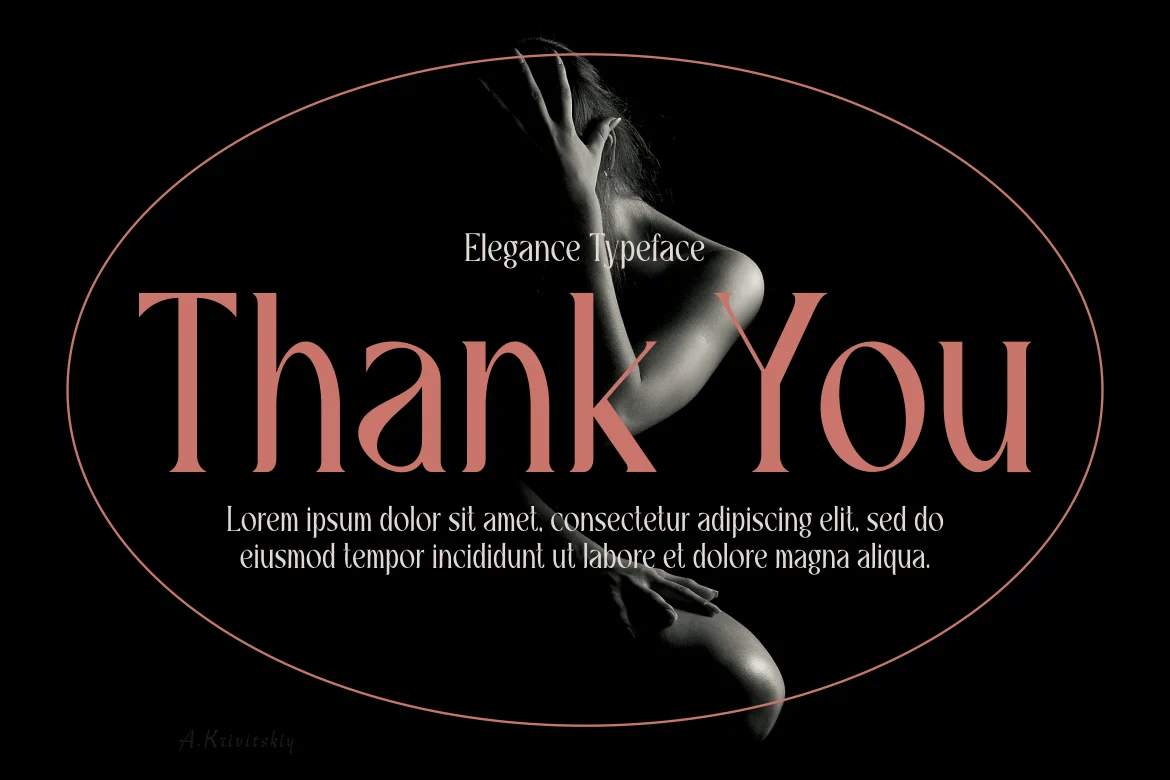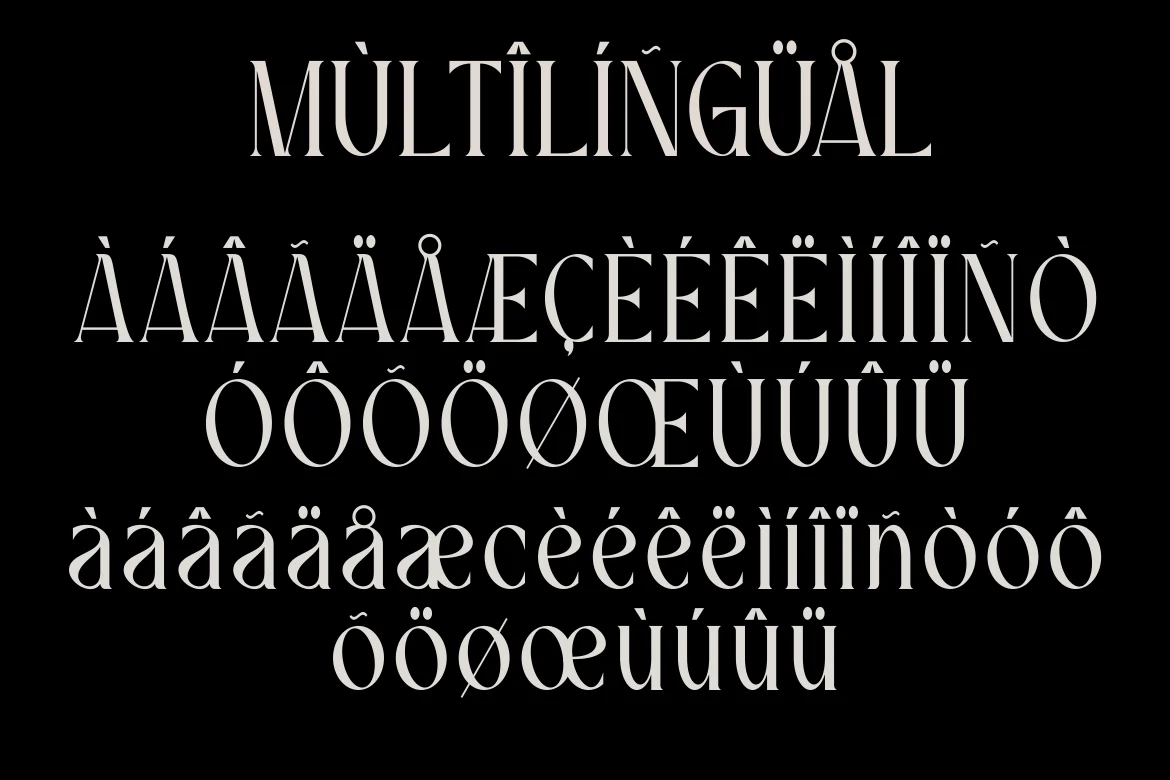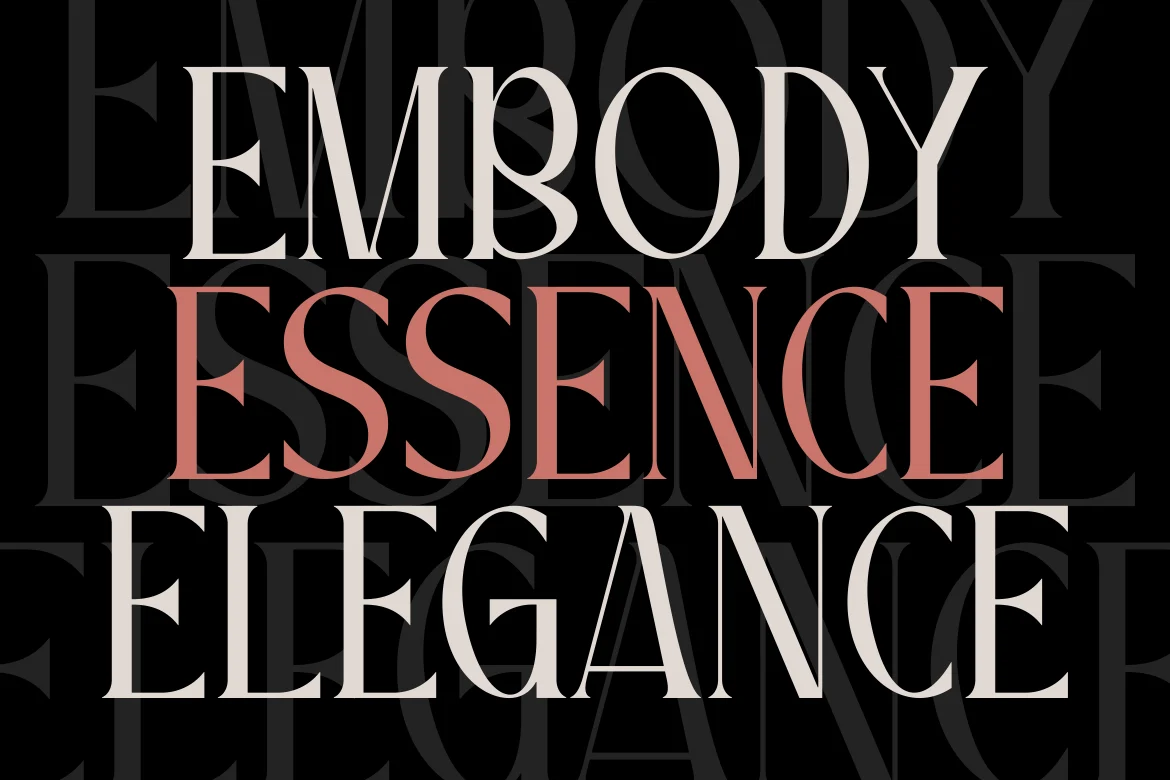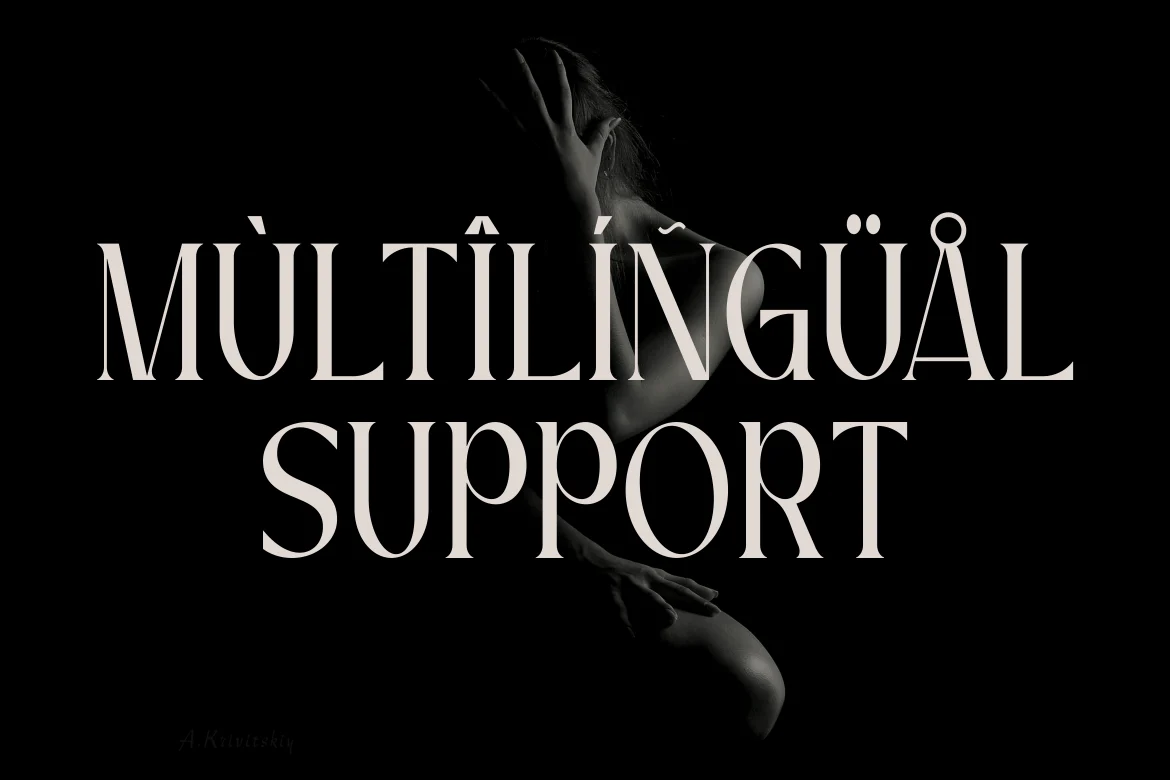
Beathani – Modern Serif Font
Beathani - Modern Serif Font - Modern Font is a bold and authentic display font. The font is suitable for any branding project like Fashion, template design, esport, and many more. outstanding in a wide range of contexts.